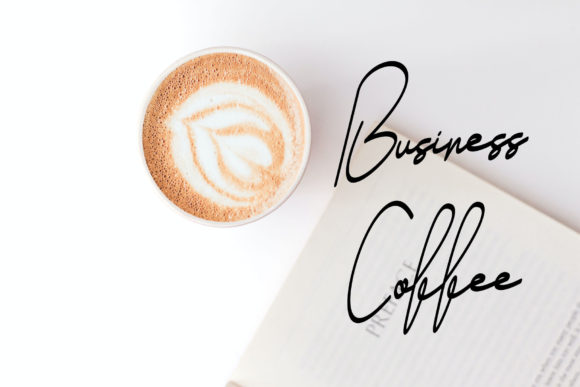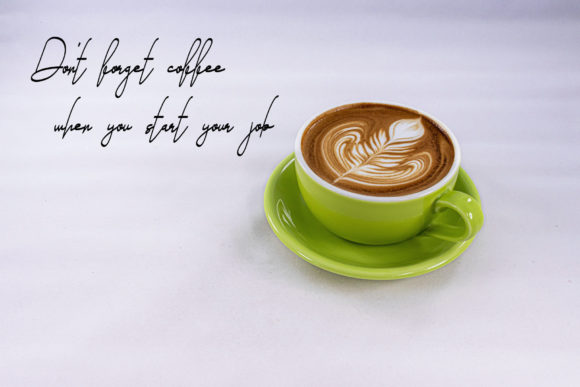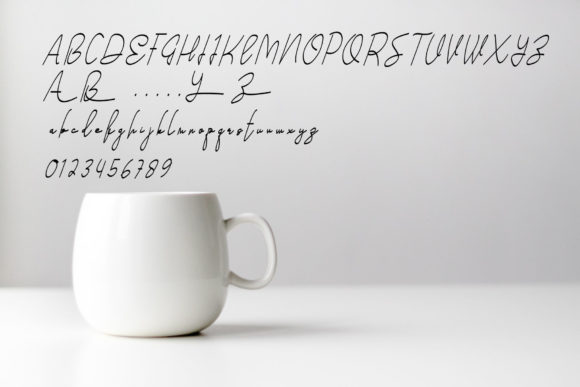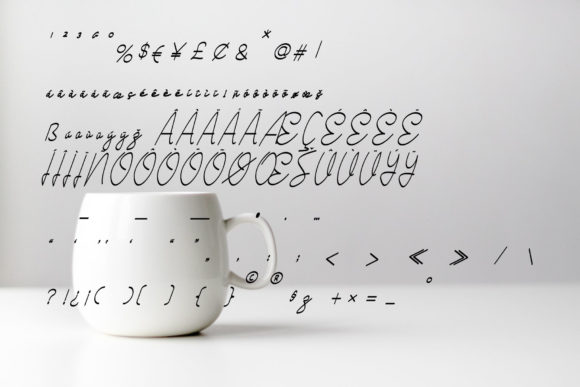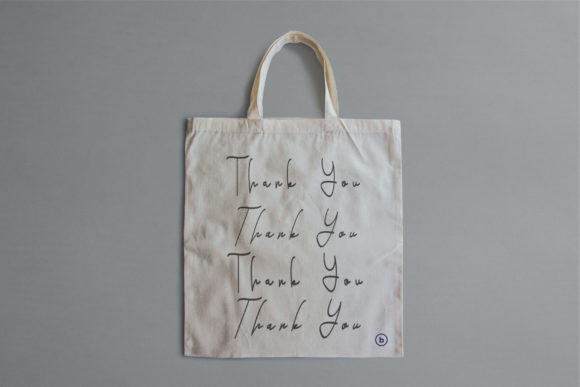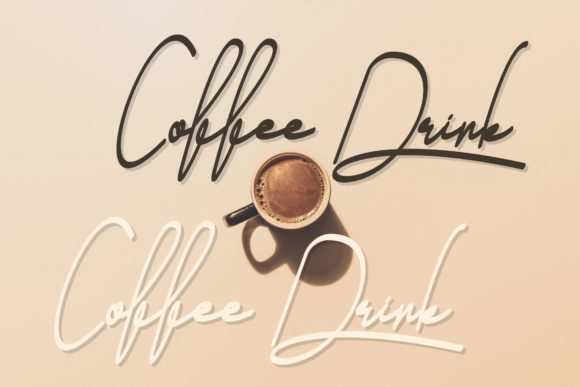
Coffee Drink Font: The Perfect Choice for Eye-Catching Designs
Are you a designer or crafter looking for a unique and beautiful font to elevate your designs? Look no further than the Coffee Drink Font! This stunning thin, relaxed, and cursive script font is the perfect choice for creating eye-catching logos, branding, and quotes that will make your design come alive.
What Makes Coffee Drink Font So Special?
Coffee Drink Font is a one-of-a-kind font that boasts a unique and beautiful touch in every letter. Its thin and relaxed design makes it perfect for adding a touch of elegance and sophistication to your designs. The cursive script style gives it a friendly and approachable feel, making it ideal for a wide range of design projects.
When it comes to creating logos and branding materials, the font you choose can make all the difference. Coffee Drink Font is specifically designed to help you create eye-catching and memorable logos that will set your brand apart from the competition. Its unique and beautiful touch will add a touch of personality to your brand, making it more relatable and engaging to your target audience.
Great for Quotes and Typography
Coffee Drink Font is not just limited to logos and branding. It’s also perfect for creating stunning quotes and typography designs. The cursive script style gives it a flowing and natural look that is perfect for conveying inspiring and thought-provoking messages. Whether you’re creating social media graphics, posters, or flyers, Coffee Drink Font is the perfect choice.
Why Choose Coffee Drink Font?
- Unique and Beautiful Touch: Every letter in Coffee Drink Font has a unique and beautiful touch that will make your design stand out.
- Thin and Relaxed Design: The thin and relaxed design of Coffee Drink Font makes it perfect for adding a touch of elegance and sophistication to your designs.
- Cursive Script Style: The cursive script style of Coffee Drink Font gives it a friendly and approachable feel that is perfect for a wide range of design projects.
Coffee Drink Font in Action
- Logo Design: Use Coffee Drink Font to create a stunning logo for your business or brand.
- Social Media Graphics: Use Coffee Drink Font to create eye-catching social media graphics that will grab the attention of your target audience.
- Posters and Flyers: Use Coffee Drink Font to create stunning posters and flyers that will make your message stand out.
- Branding Materials: Use Coffee Drink Font to create consistent branding materials that will help to establish your brand identity.
In conclusion, Coffee Drink Font is a stunning thin, relaxed, and cursive script font that is perfect for creating eye-catching logos, branding, and quotes. Its unique and beautiful touch makes it a standout font that will add a touch of elegance and sophistication to your designs. Whether you’re a designer or crafter, Coffee Drink Font is a must-have font that will help you to take your designs to the next level.